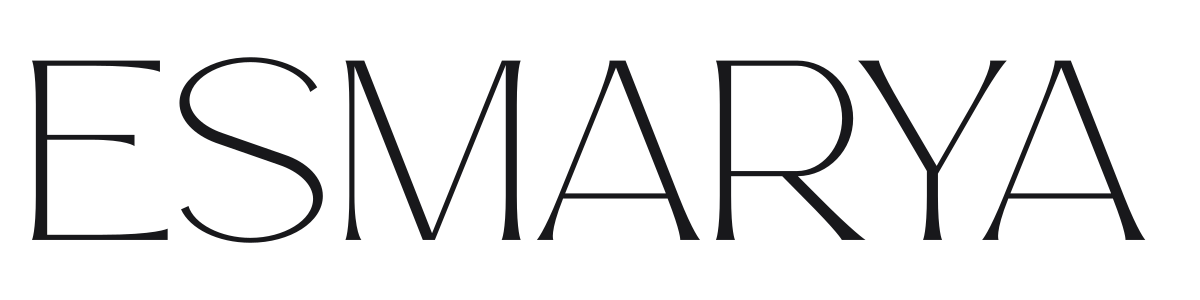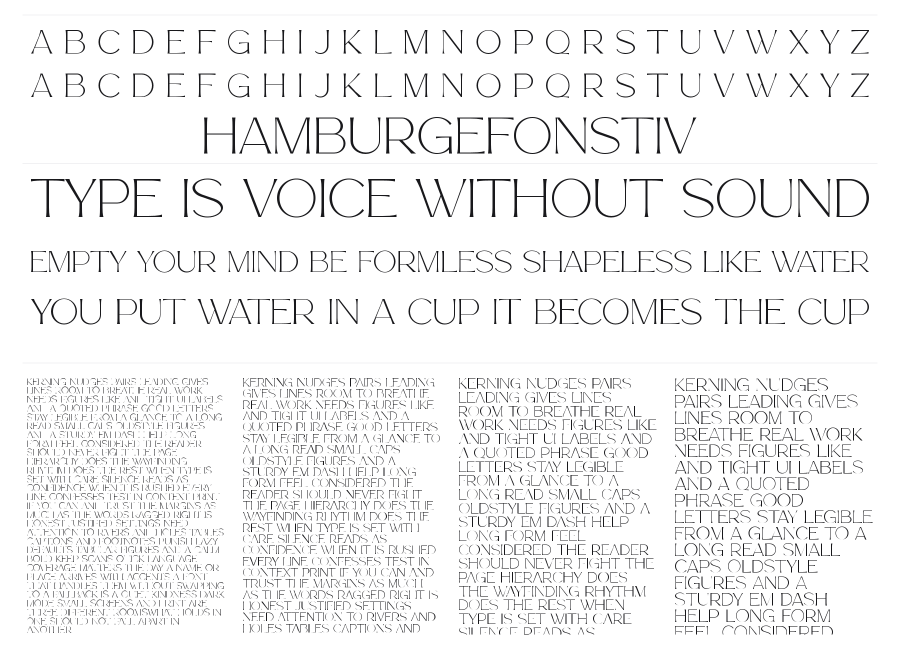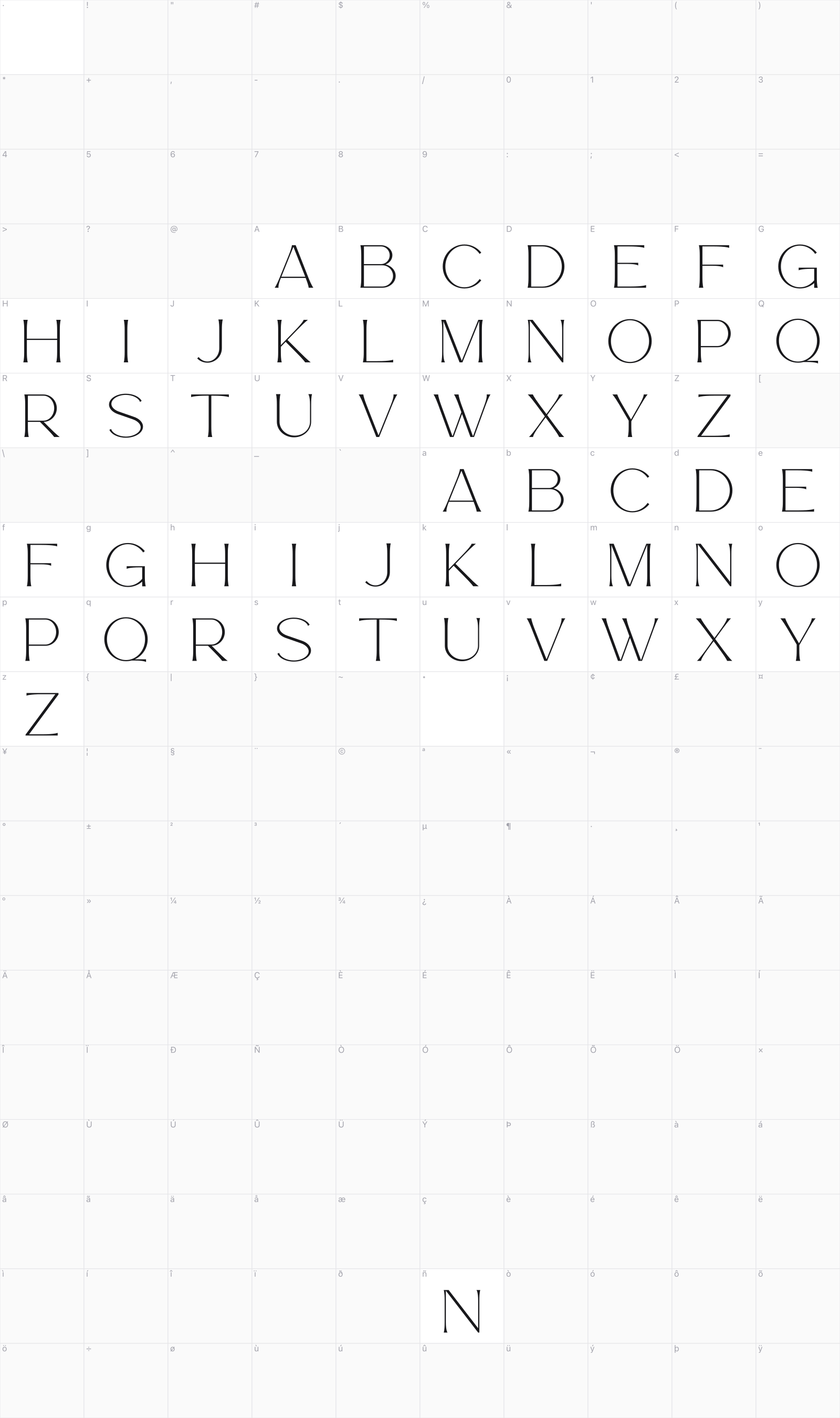
Esmarya
Esmarya is an ultra-thin contemporary serif with extreme stroke contrast and barely-there hairline details. Its tall, open characters and delicate flat serifs give it a graceful, high-fashion presence that reads beautifully at large sizes. The kind of typeface that lets white space do most of the talking.